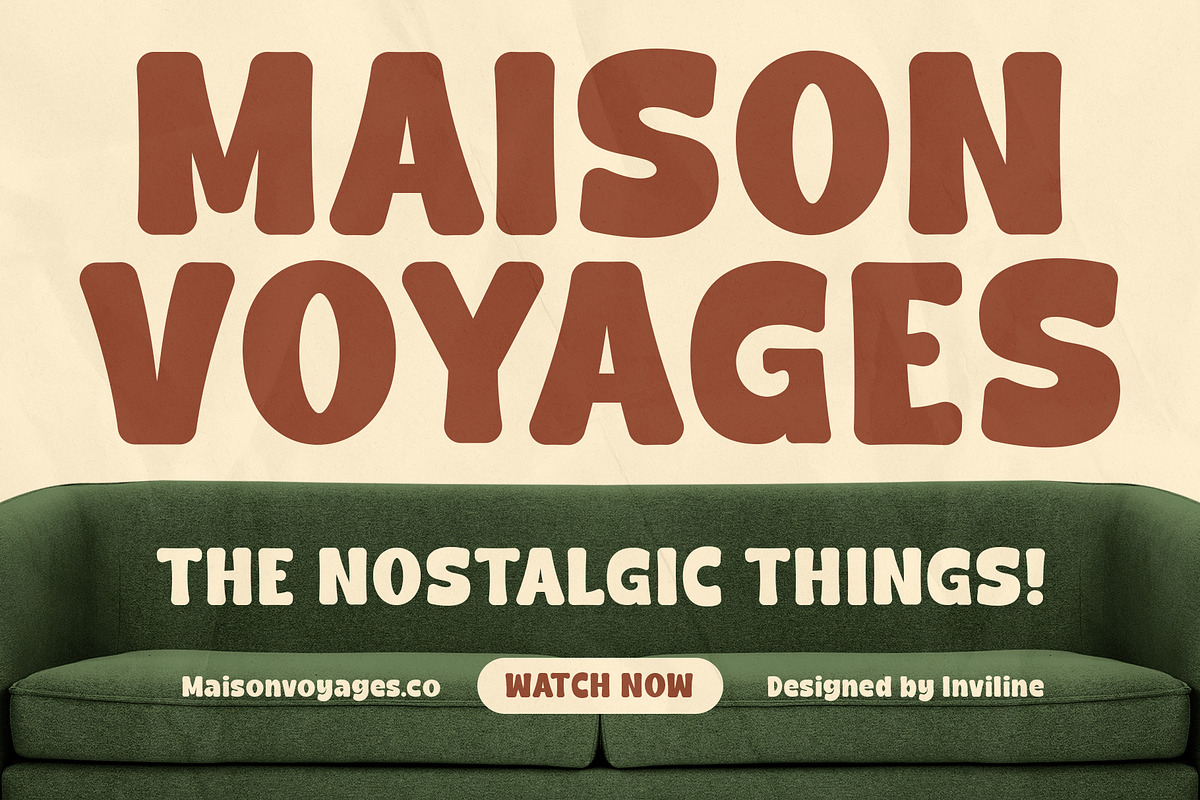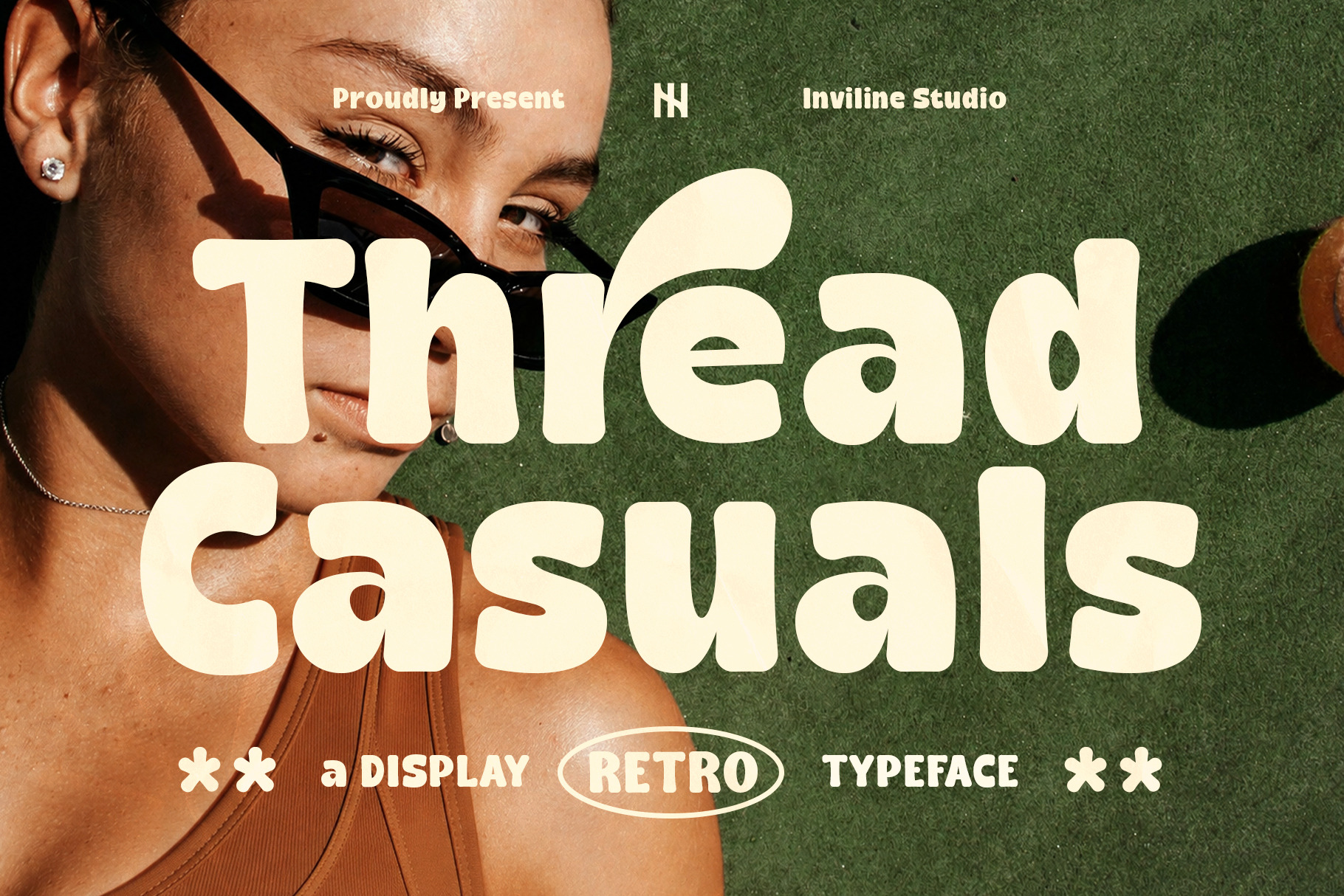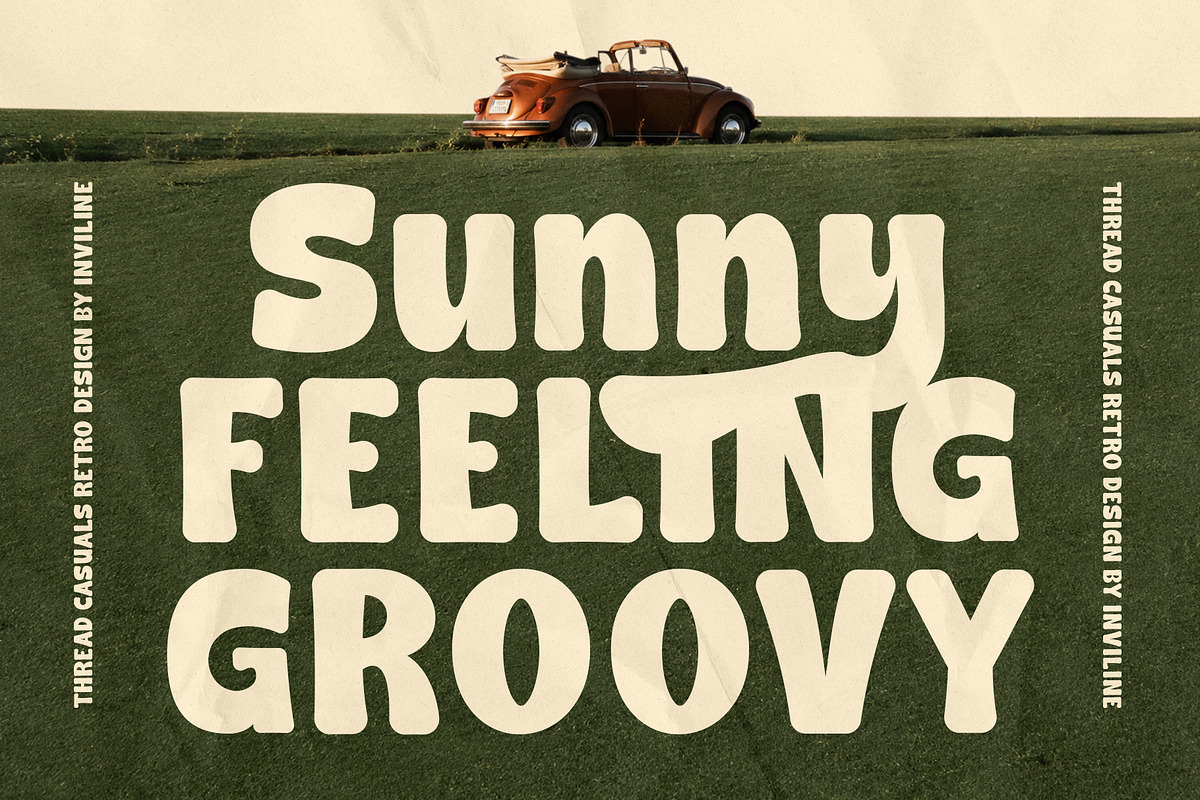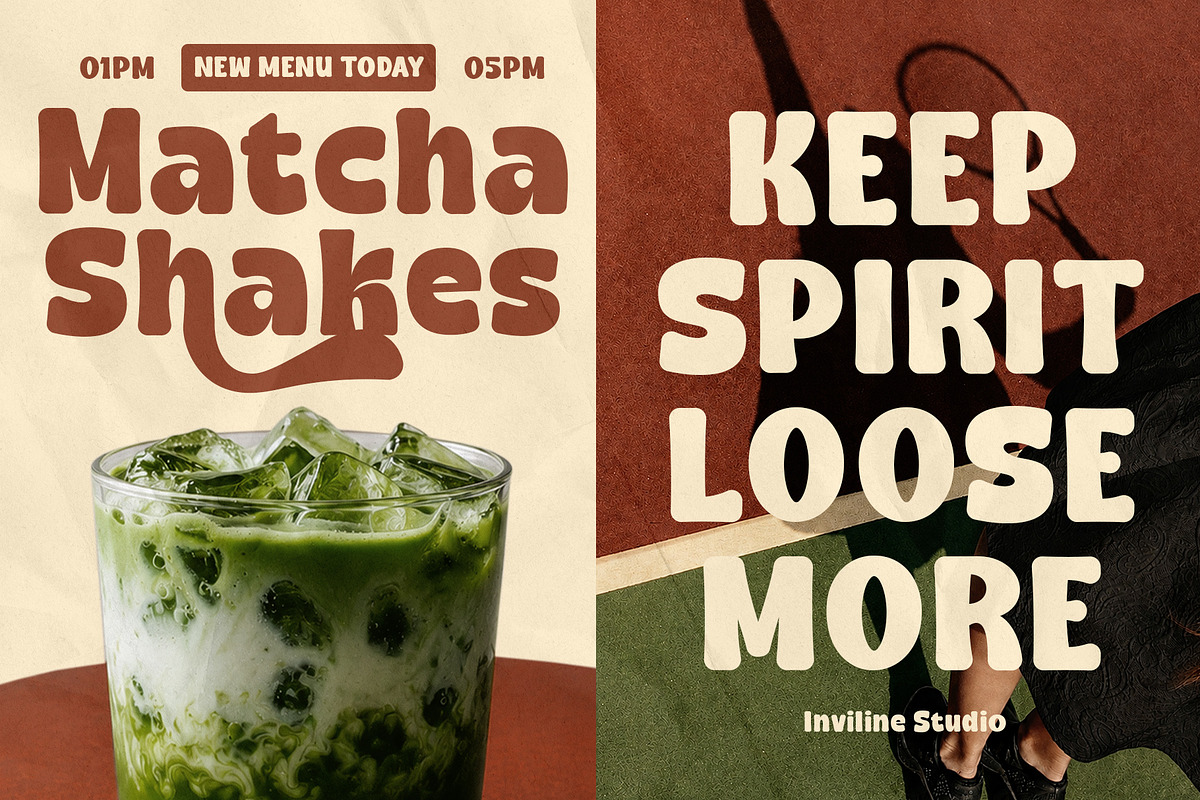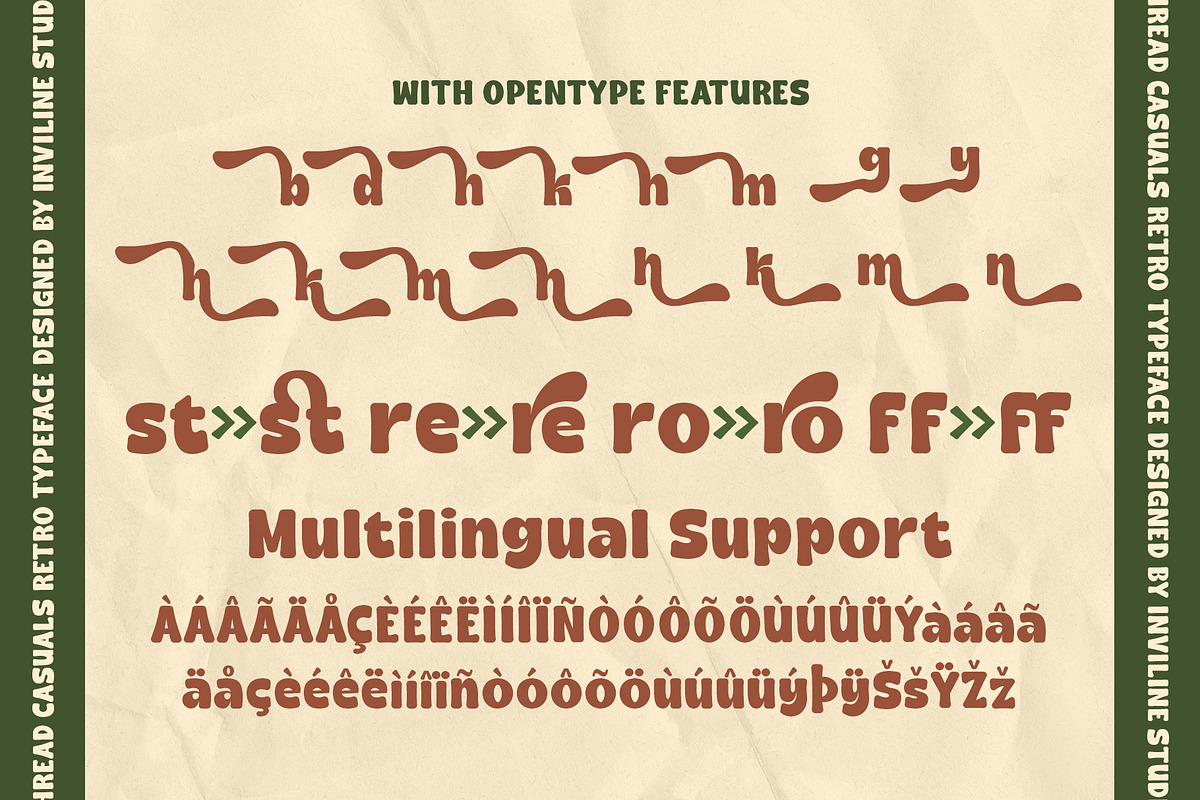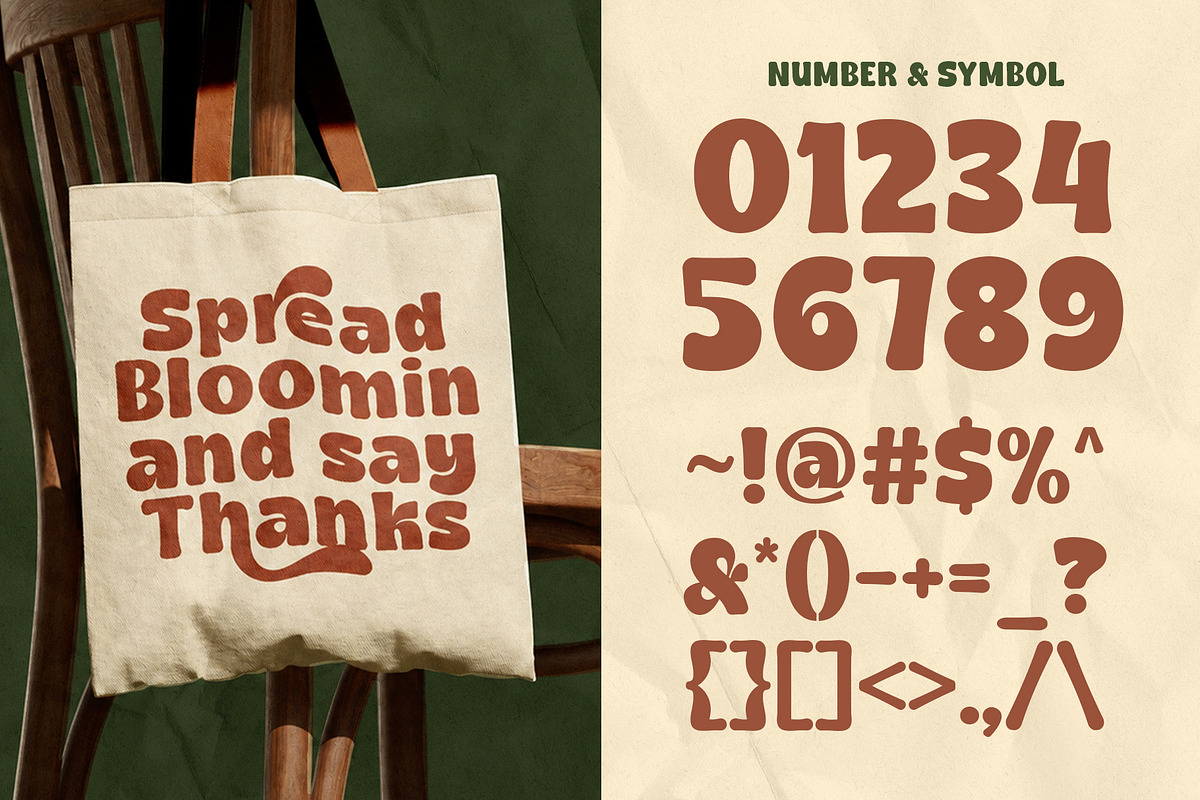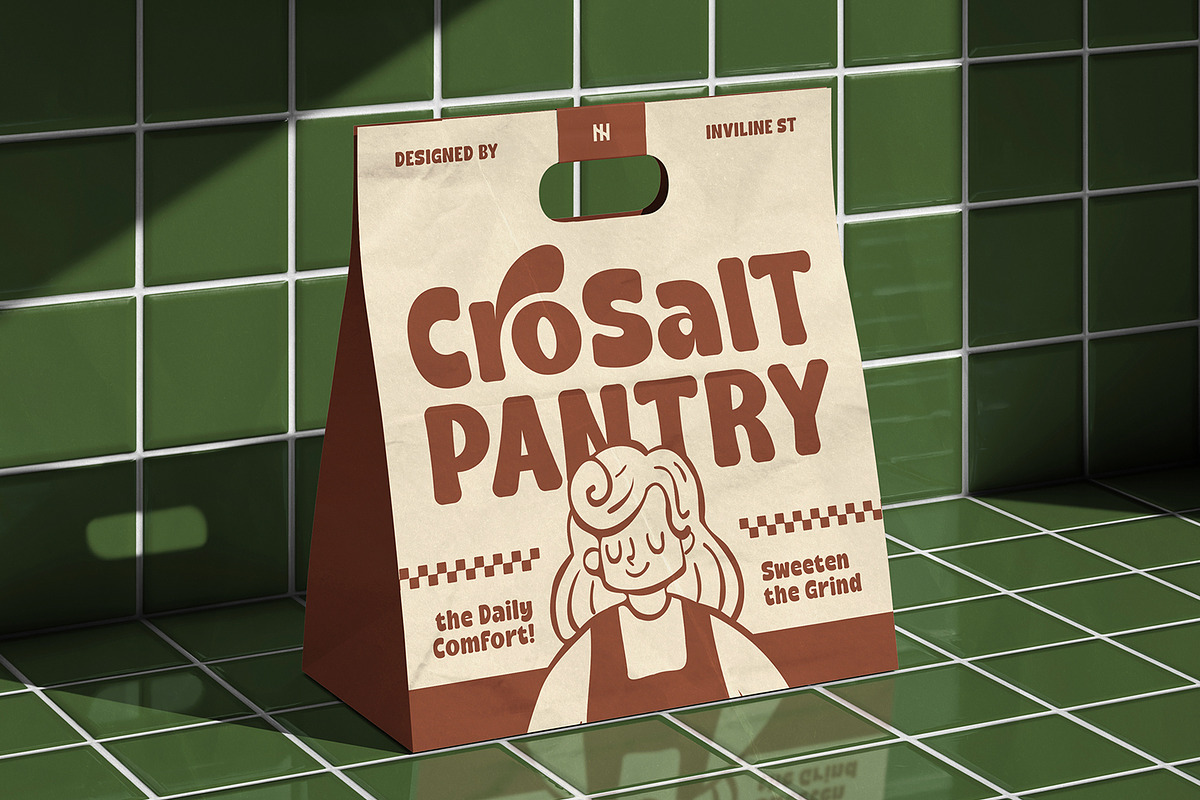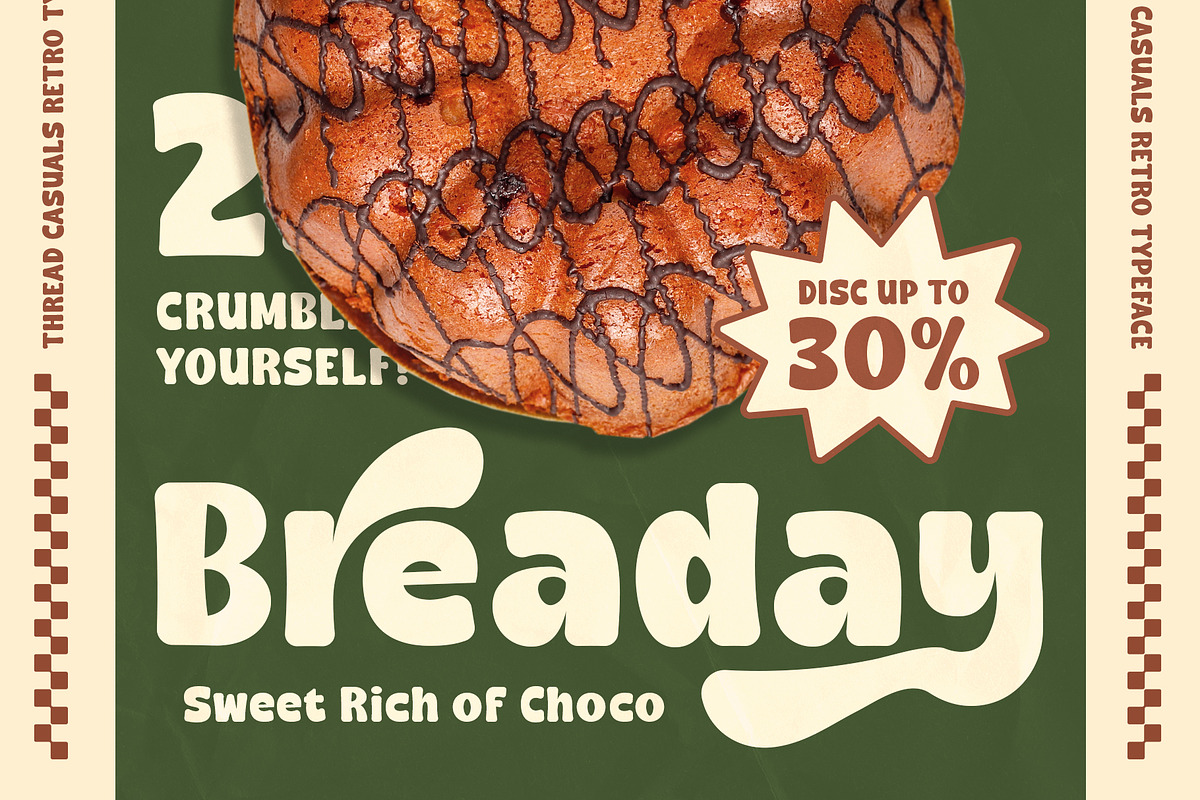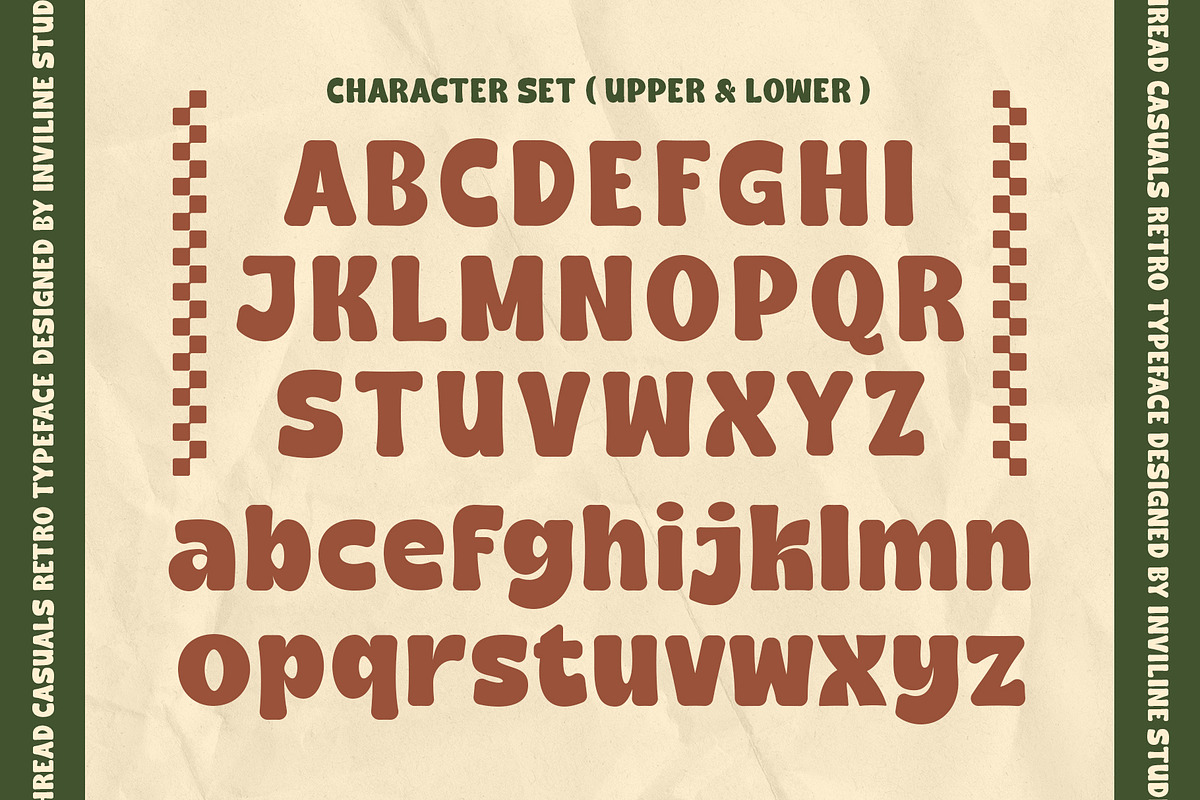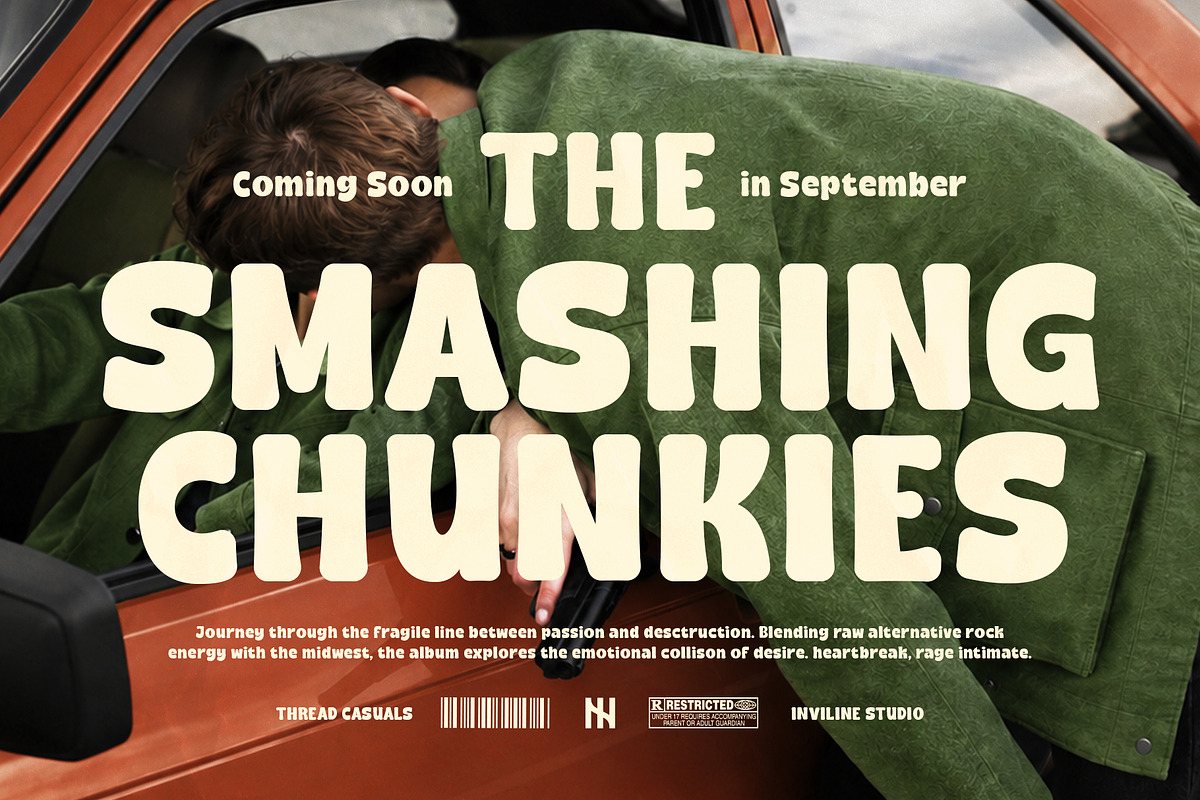
Thread Casuals - Retro Display Font
Retro Groovy is a bold display font inspired by vintage aesthetics and playful retro design. Its rounded shapes and expressive style bring a fun, nostalgic feel to modern creative projects.
A cheerful retro typeface made for eye-catching designs. Perfect for brands that want a friendly, creative, and memorable look.
Uppercase & lowercase
Numbers & symbols
Stylistic alternates
Retro display style
Bold rounded letters
Playful vintage look
Stylistic Alternates: S, J, I, g, j, Y, Z, L
18 Ligatures: st, br, cr, ct, fr, ist, op, or, ox, th, Tr, tt, wn, ff, fi, fl, ffi, ft
Multilingual Support: À, Á, Â, Ç, É, Ñ, Ø, Ü, etc.